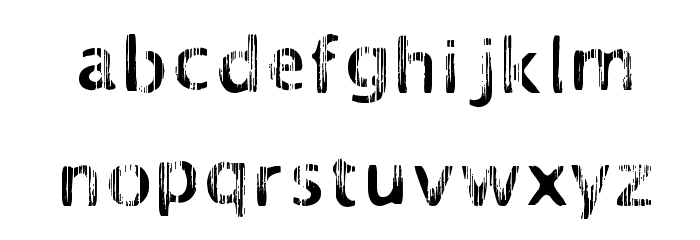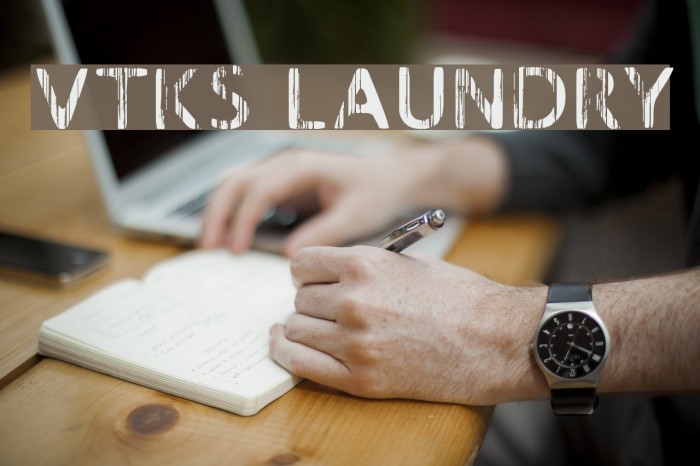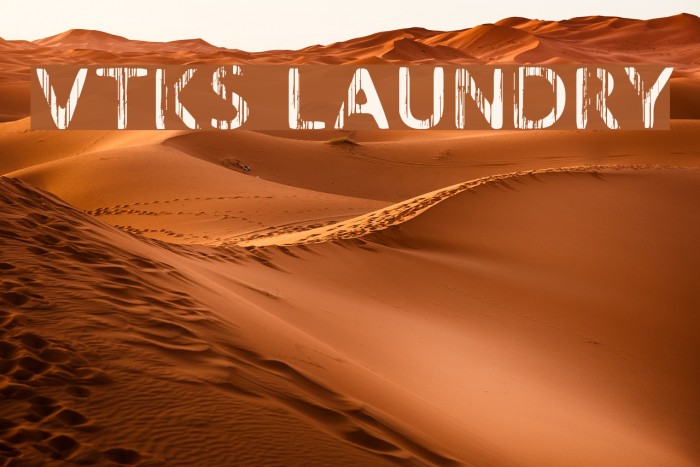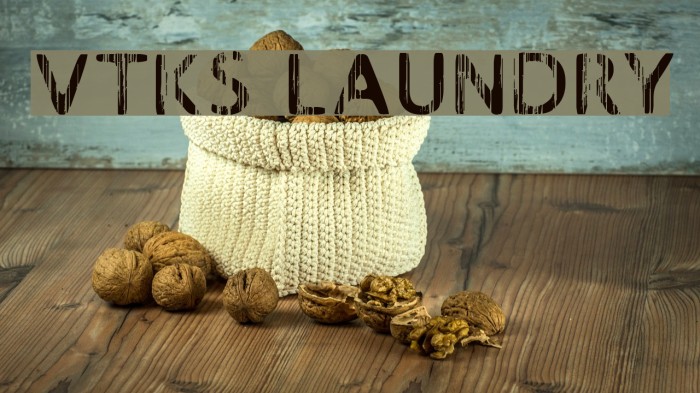
VTKS LAUNDRY Font
This font features a distressed, grunge style with a textured appearance that mimics the look of worn or faded fabric. The letters have a rough, uneven edge, giving them a unique, weathered look. The uppercase and lowercase characters maintain a consistent style, with a moderate level of detail that enhances the overall rugged aesthetic. The numbers and special characters follow the same design principles, ensuring a cohesive look across all glyphs. This font is ideal for projects that require a vintage or industrial feel, adding character and depth to any design.
A distressed, grunge-style font with a textured, weathered appearance.
- Proposed Projects: Ideal for vintage posters, album covers, t-shirt designs, and branding that requires a rugged, industrial look.
- Overall Style: Vintage
- Use Case: Logos, Posters, Branding